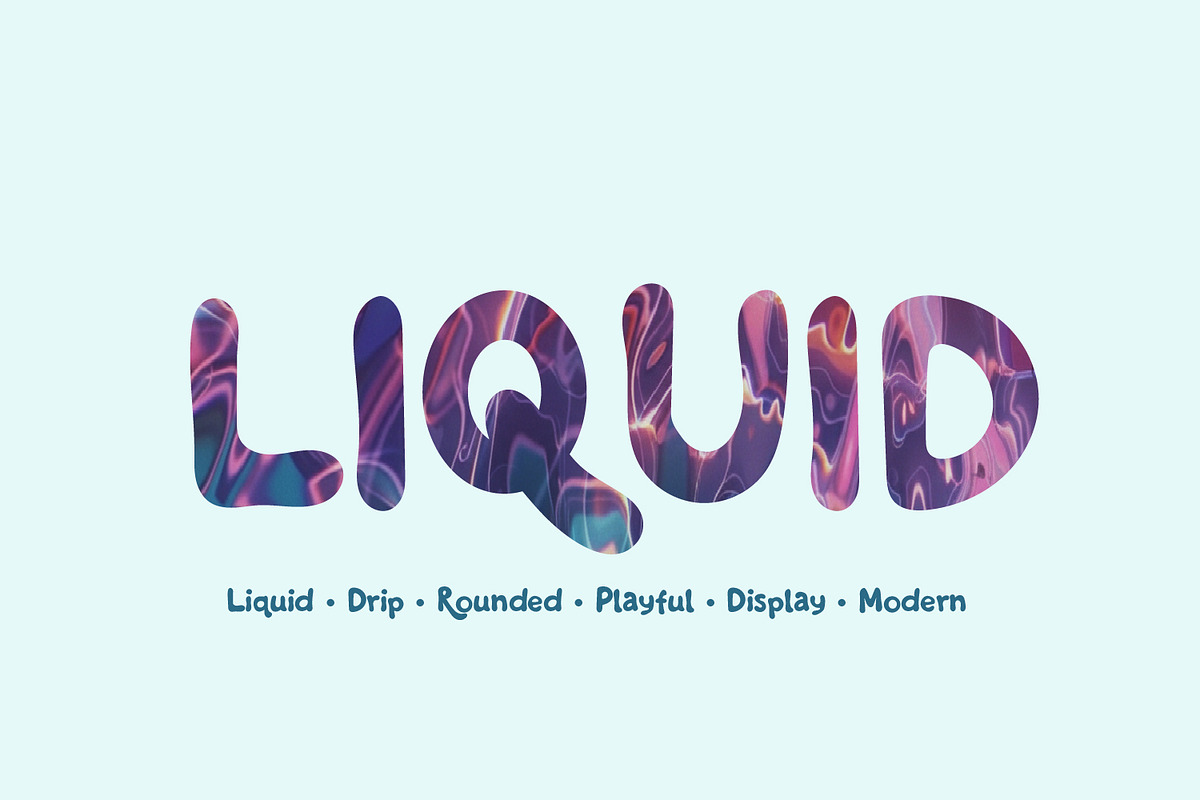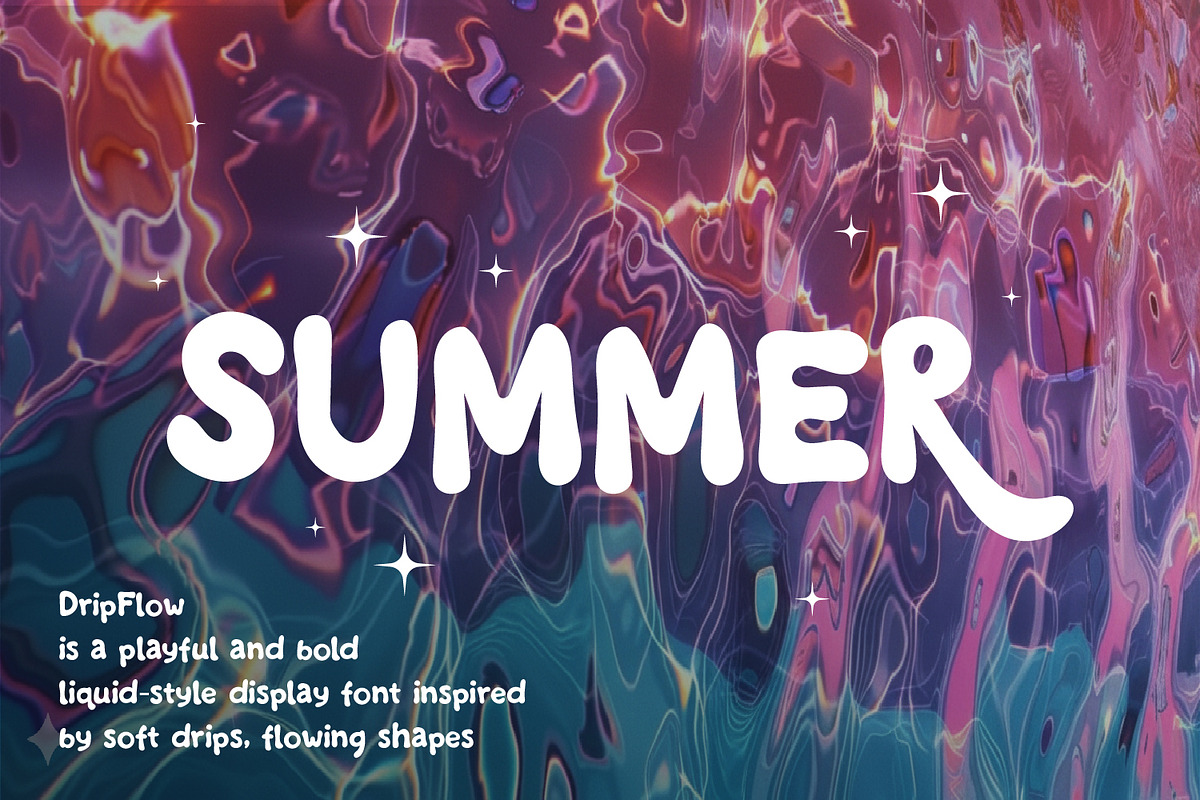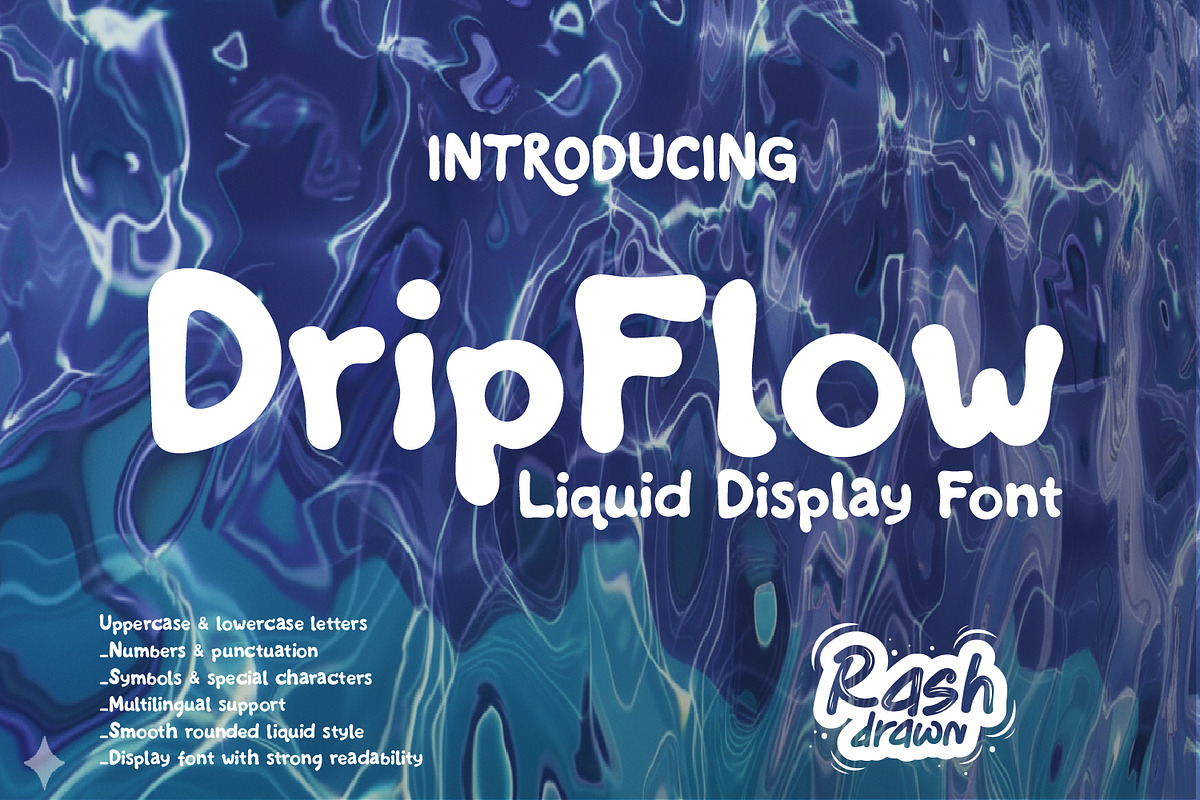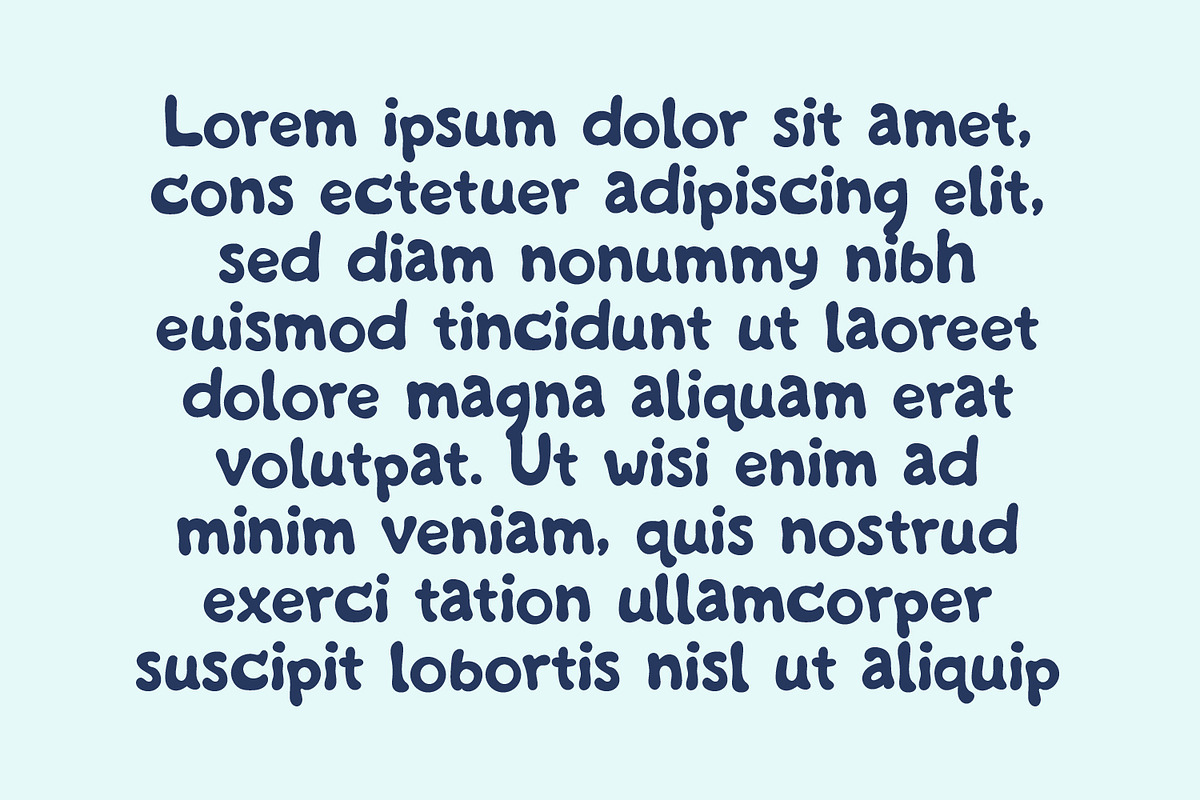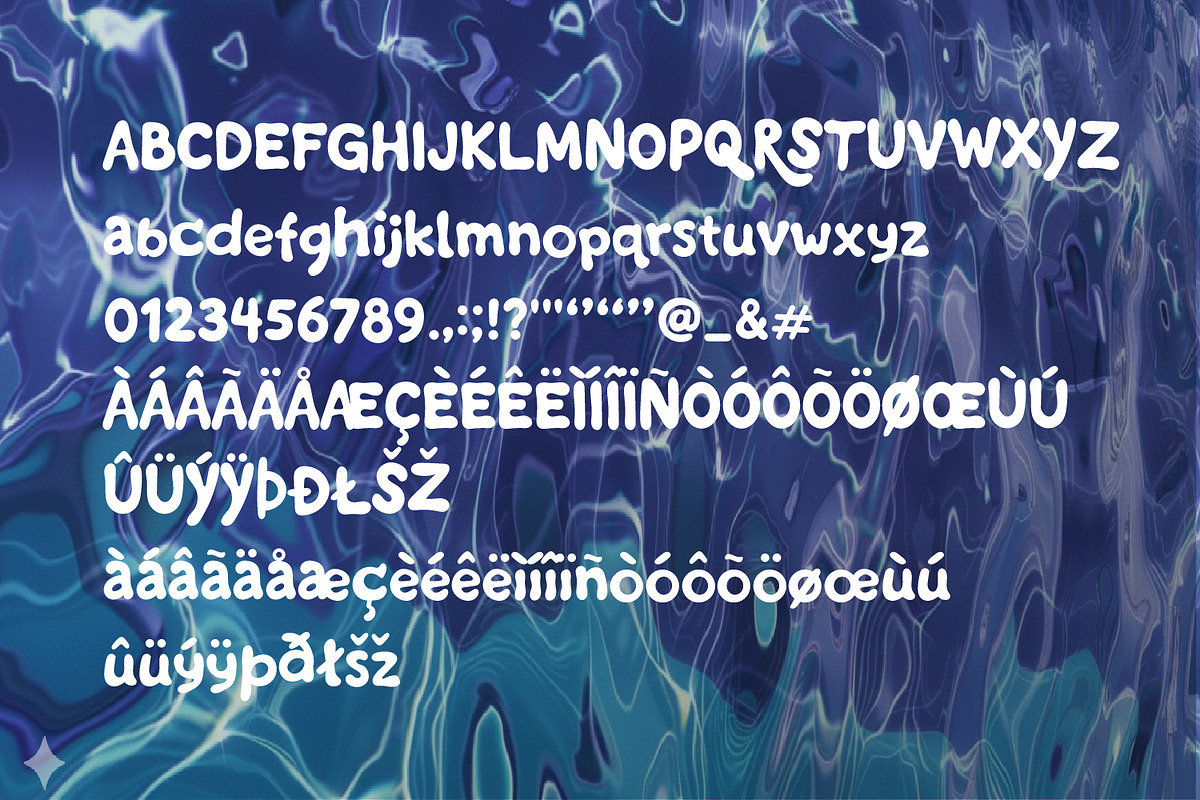
DripFlow
DripFlow is a playful and bold liquid-style display font inspired by soft drips, flowing shapes, and rounded forms. Designed to look fun, friendly, and expressive, this font brings a strong visual personality to any creative project.
With full uppercase and lowercase letters, numbers, punctuation, symbols, and multilingual support, DripFlow is versatile and ready for both personal and commercial use.
Perfect for projects that need a fun, modern, and eye-catching look